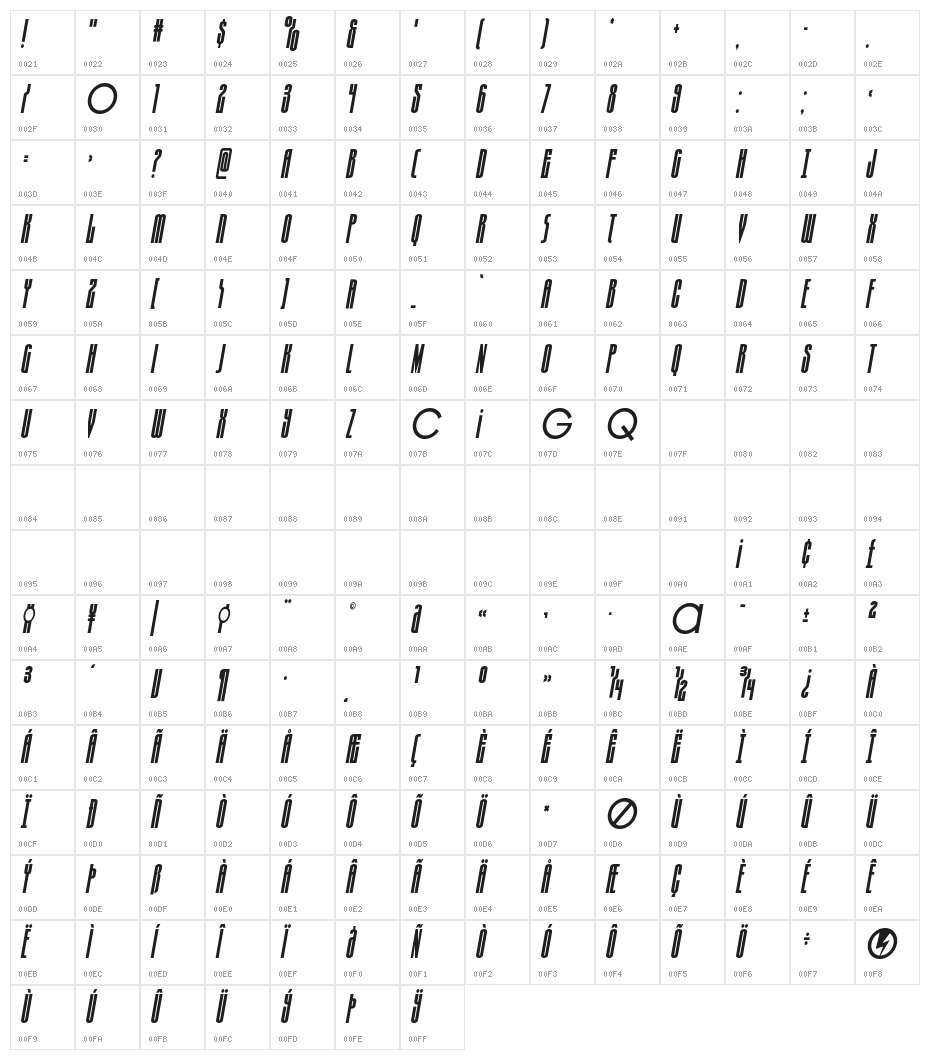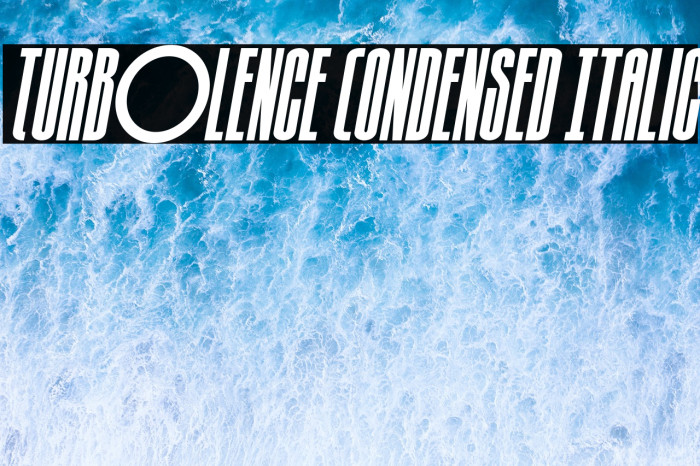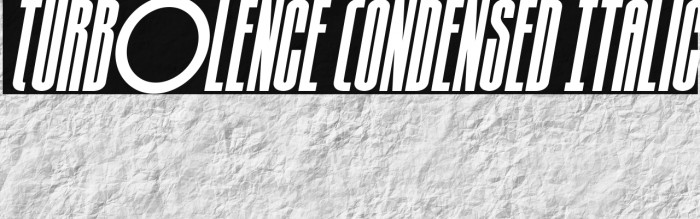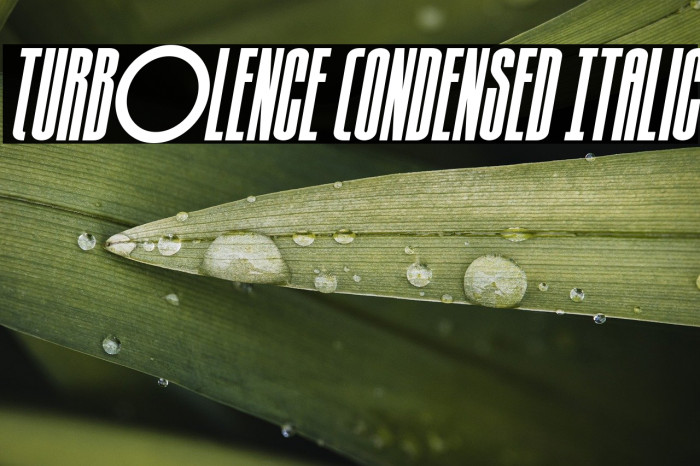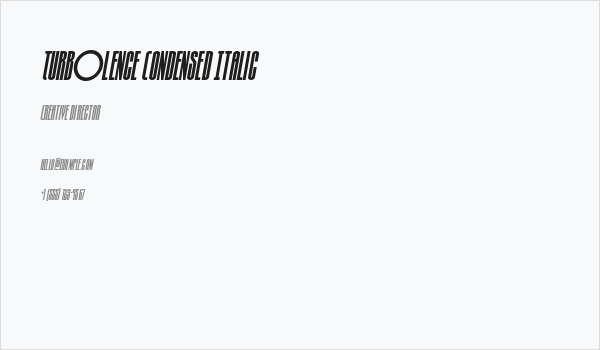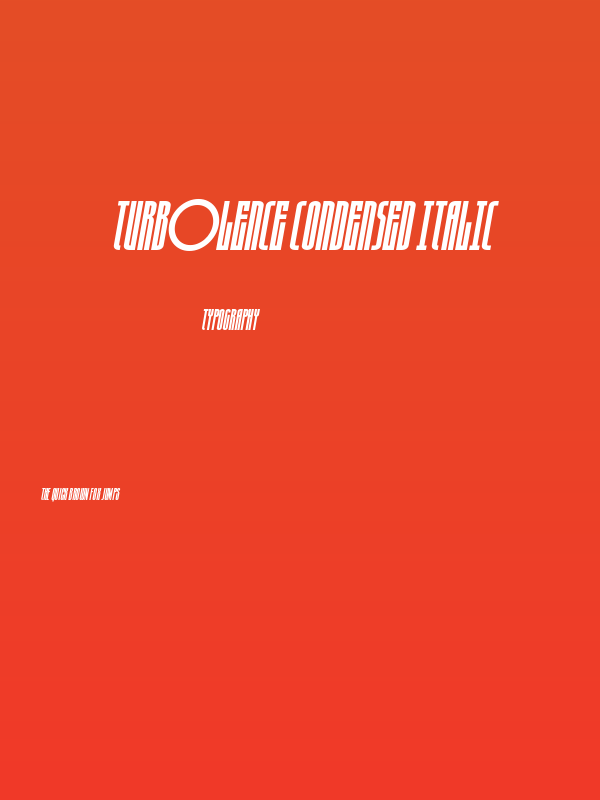
Turb0lence Condensed Italic Font
Turb0lence Condensed Italic Description
This font exhibits a bold and dynamic style with a distinctly condensed form. The italic slant adds a sense of motion and urgency, making it ideal for impactful headlines or attention-grabbing designs. The characters are tightly spaced, enhancing the condensed appearance, while maintaining legibility. The high contrast between thick and thin strokes adds to its striking visual appeal. This font is well-suited for modern and edgy projects, where a strong and assertive typeface is required. Its unique style makes it a great choice for branding, posters, and promotional materials.
| Proposed Projects | Ideal for branding, posters, promotional materials, and any project needing a bold statement. |